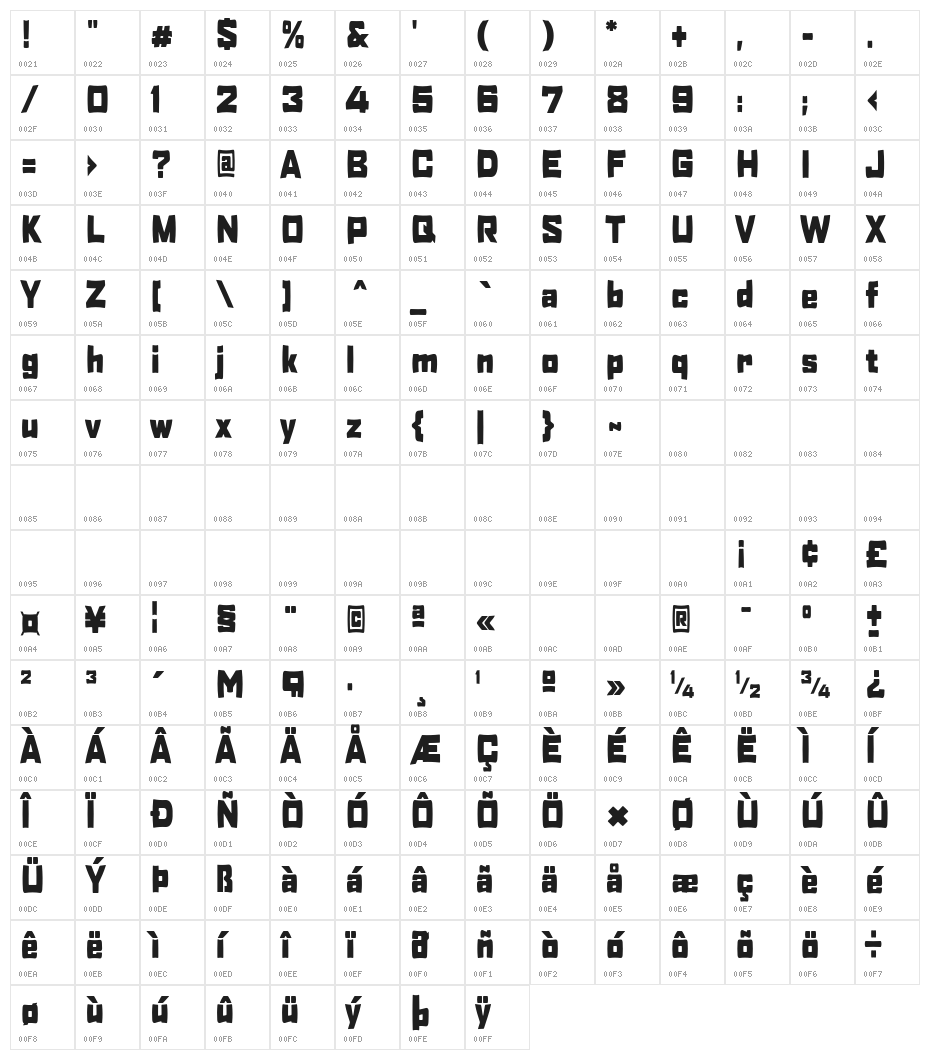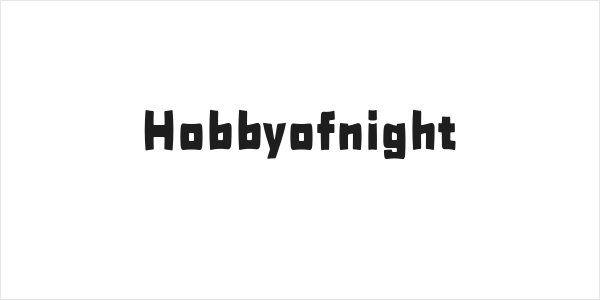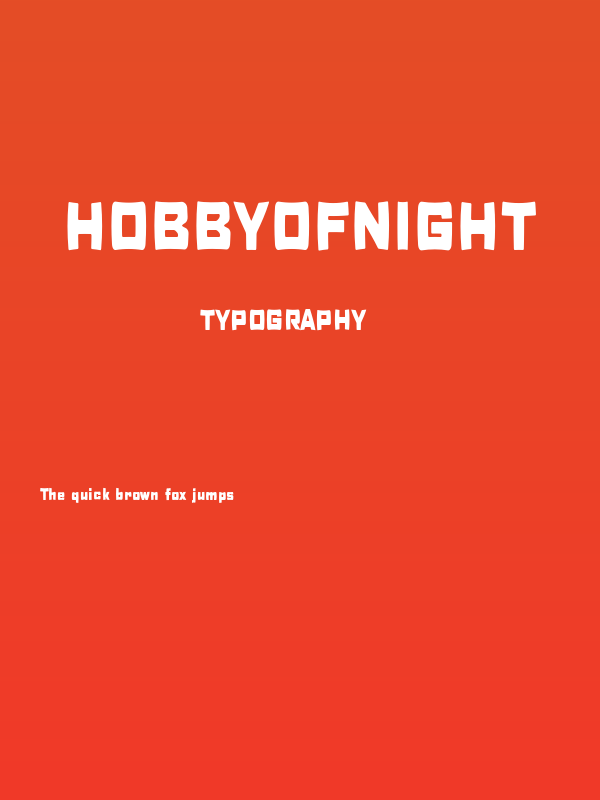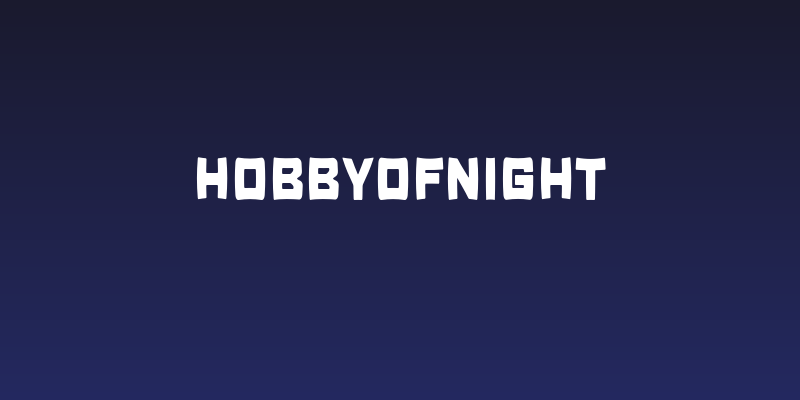
Hobbyofnight Font
Hobbyofnight Description
This font features a bold and robust design with a slightly irregular and playful appearance. The characters are thick and have a hand-drawn quality, giving them a unique and artistic flair. The uppercase and lowercase letters maintain a consistent weight, contributing to a cohesive look. The numbers and special characters are equally bold, ensuring readability and impact. The overall style is reminiscent of a handcrafted or artisanal aesthetic, making it suitable for creative and expressive projects. Its distinctive character shapes and strong presence make it ideal for attention-grabbing designs.
| Proposed Projects | Ideal for posters, branding, packaging, and creative projects that require a bold and artistic touch. |